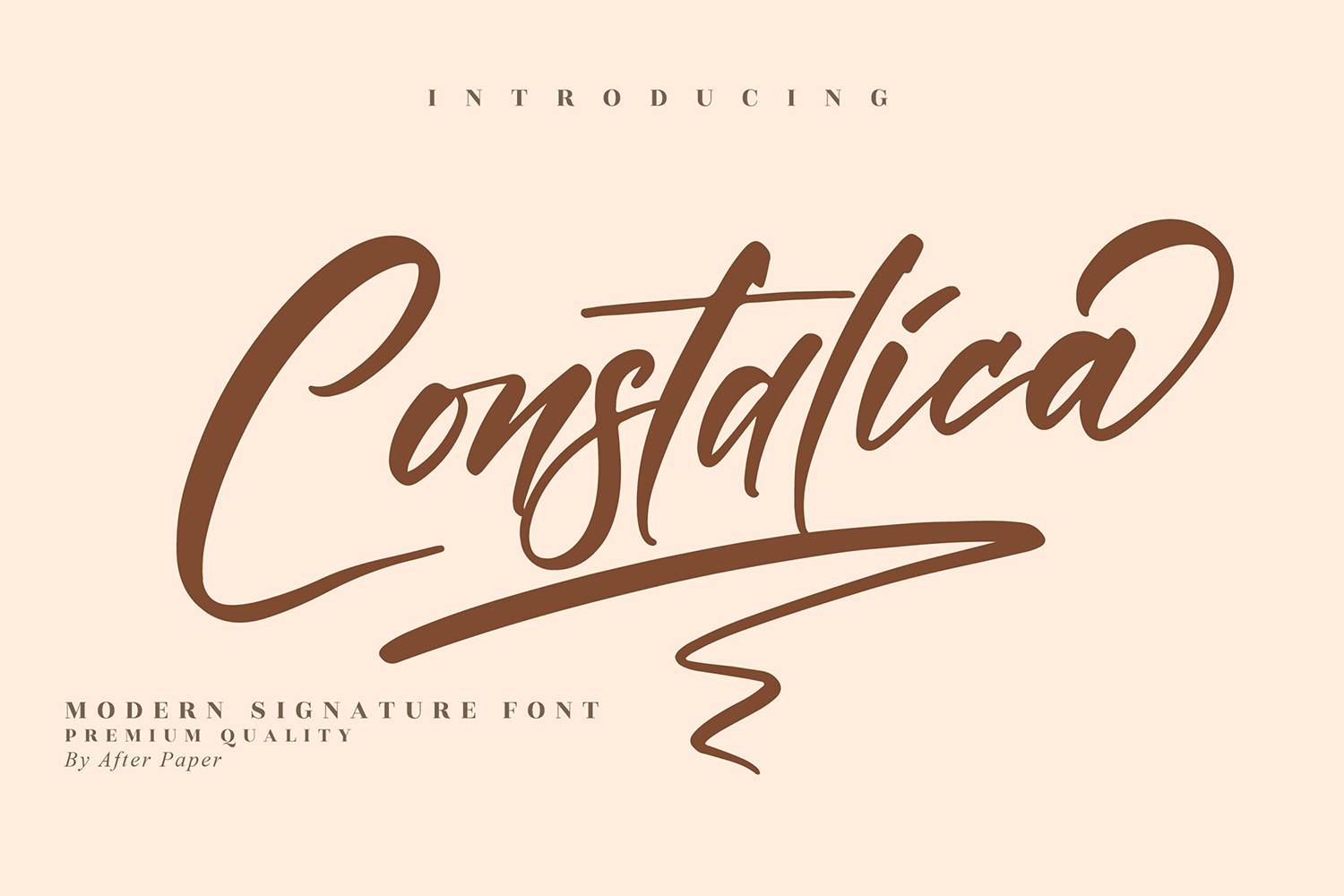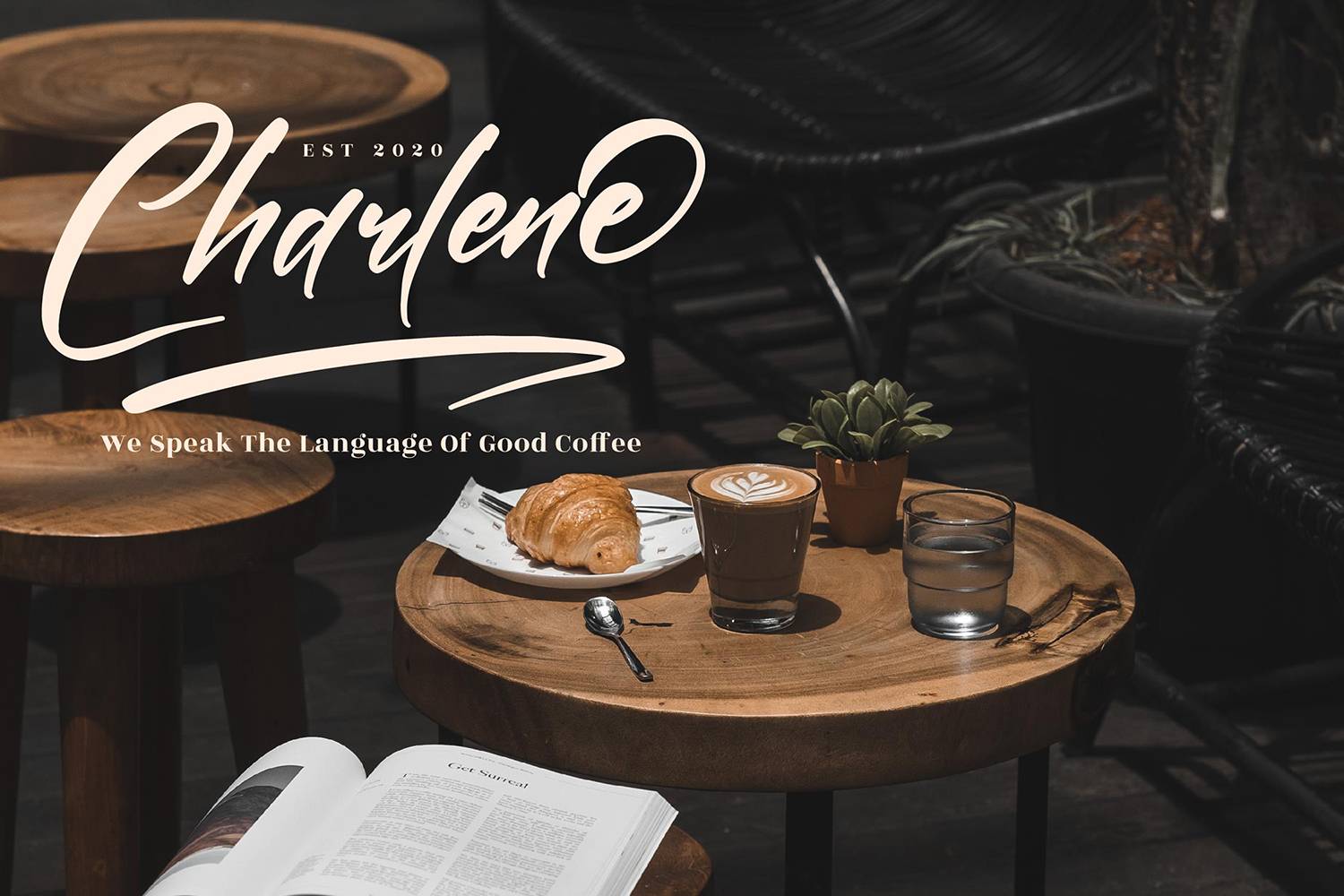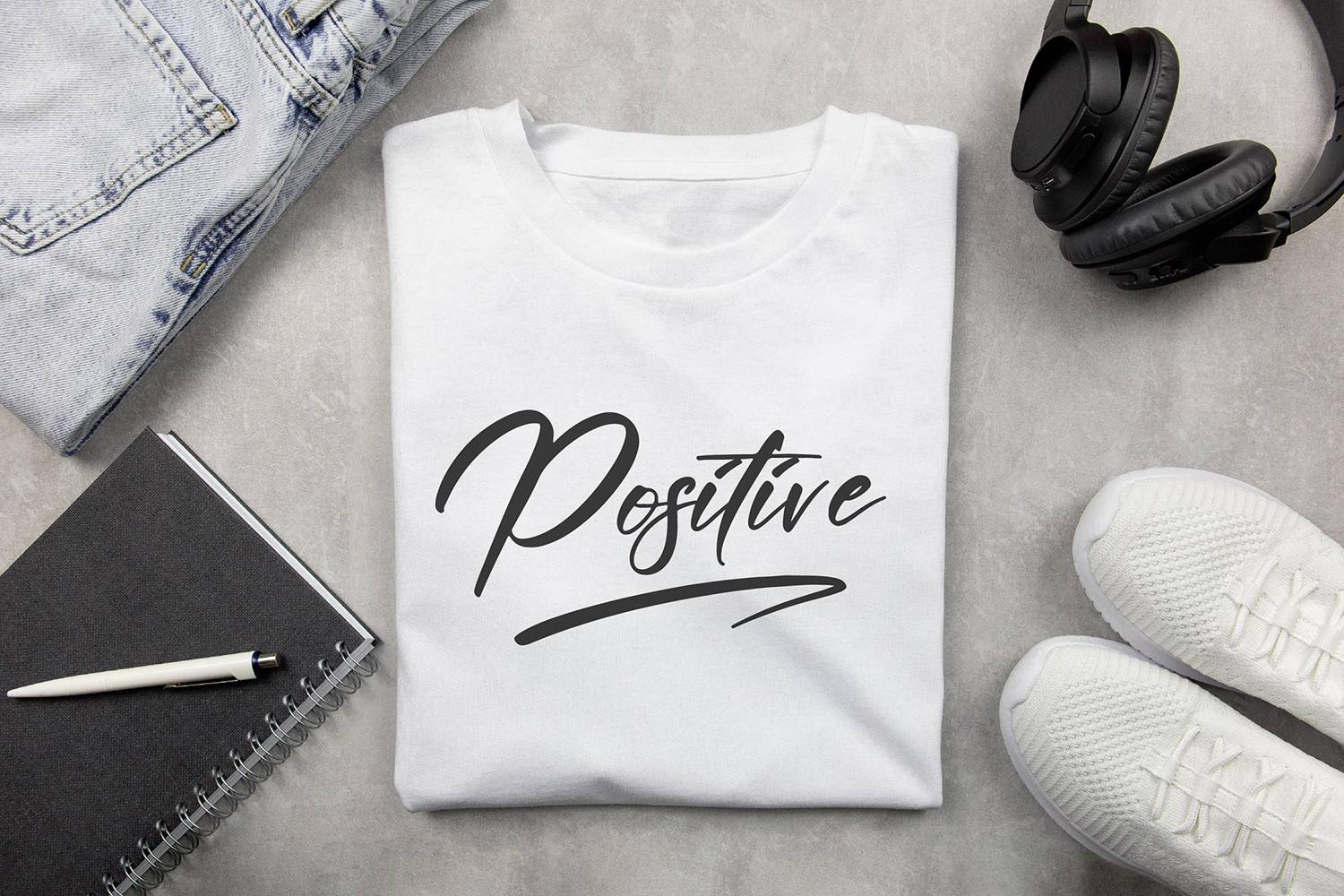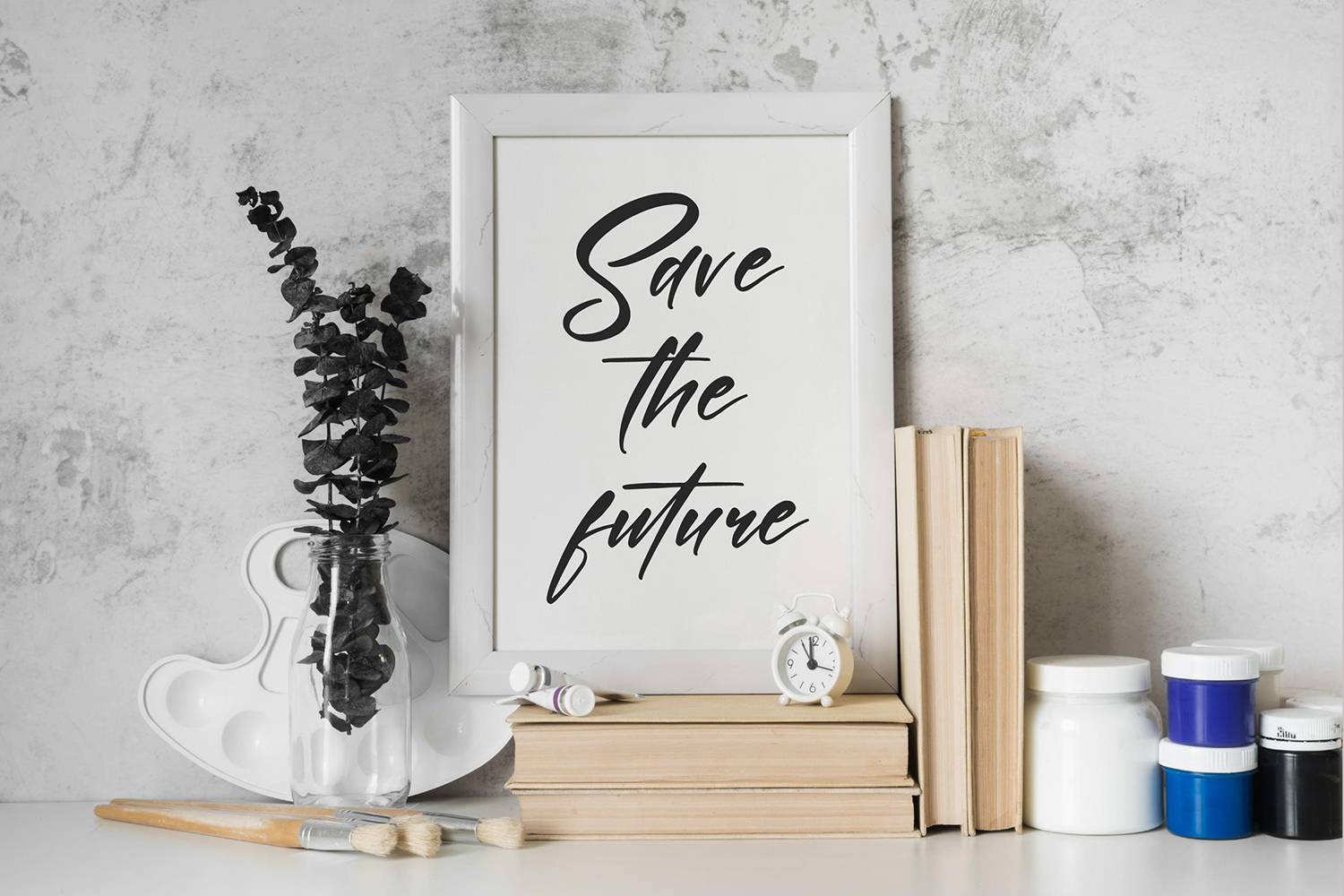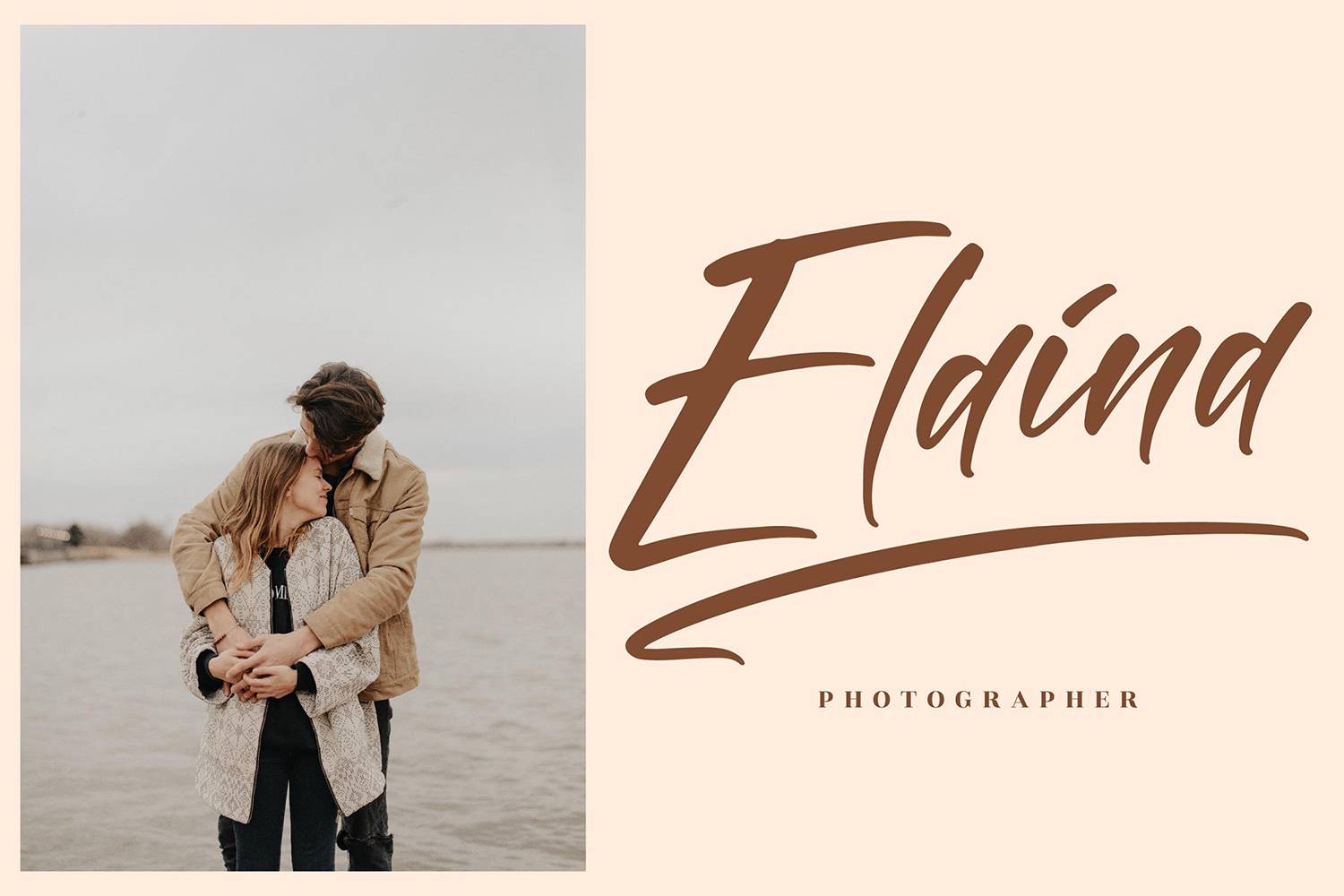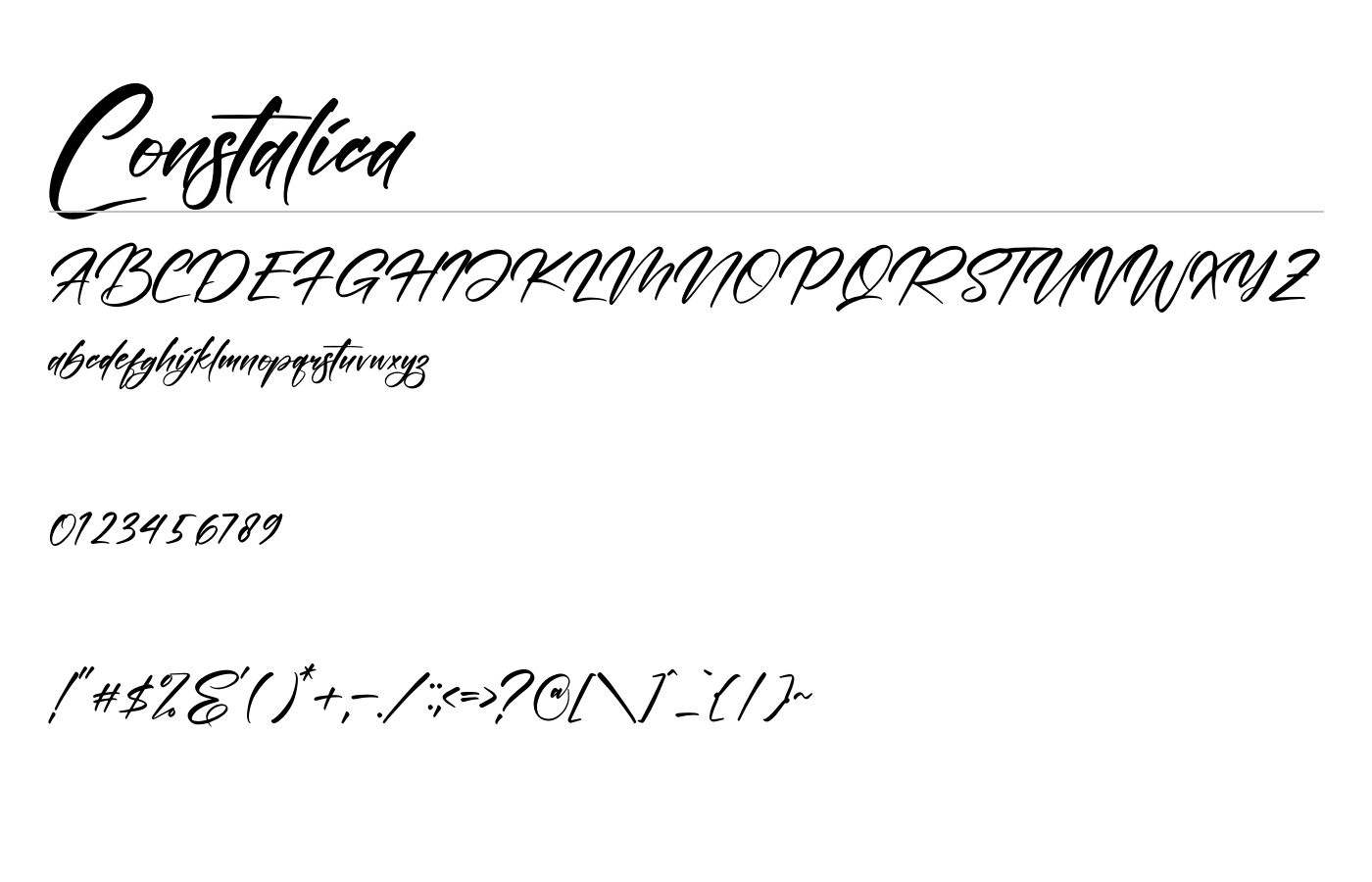
Constalica is a stylish script font that features elegant, flowing strokes with a hand-drawn feel, offering a bold and expressive personality. Its smooth curves and dynamic movement make it ideal for creative branding, invitations, and headlines where a touch of sophistication and warmth is desired. This font shines in projects needing a personalized, artistic flair without sacrificing readability.
Constalica Font
About Constalica Font